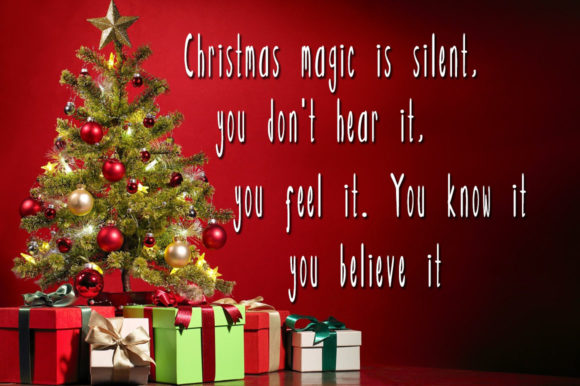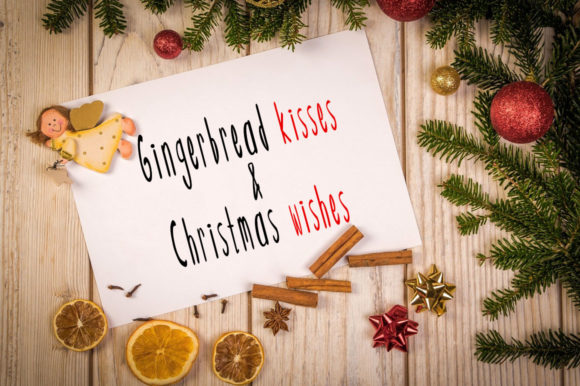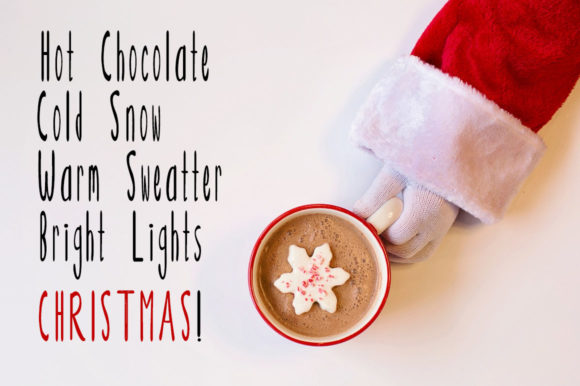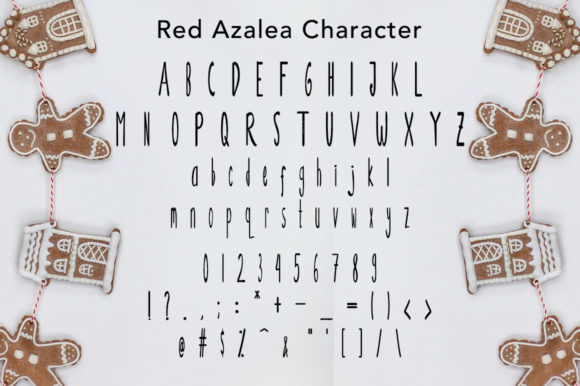
Red Azalea Font
About Red Azalea Font
Red Azalea is a cute and casual handwritten font.
Whether you’re looking for fonts for Instagram or calligraphy scripts for DIY projects, Red Azalea will turn any creative idea into a true piece of art!